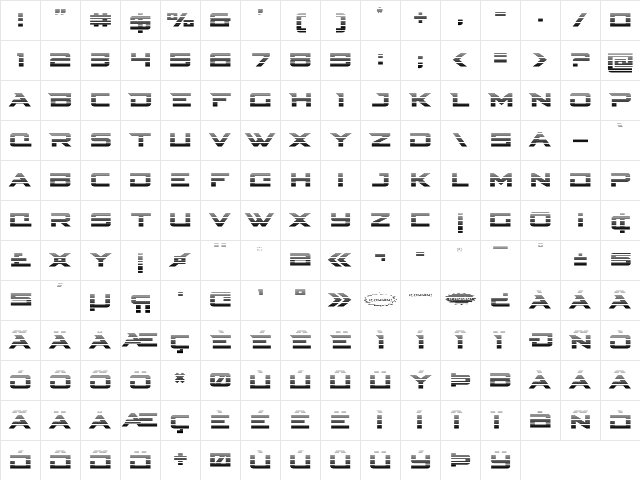
Cyberdyne Gradient Regular
Design Context for Cyberdyne Gradient Typeface
Cyberdyne Gradient has a distinctly futuristic character, with geometric precision and clean angles that feel at home in technology, gaming, and sci-fi contexts.
Pro Tip: Use Cyberdyne Gradient in combination with a neutral sans for body text. Let it define the brand voice in headlines while keeping reading comfortable elsewhere.